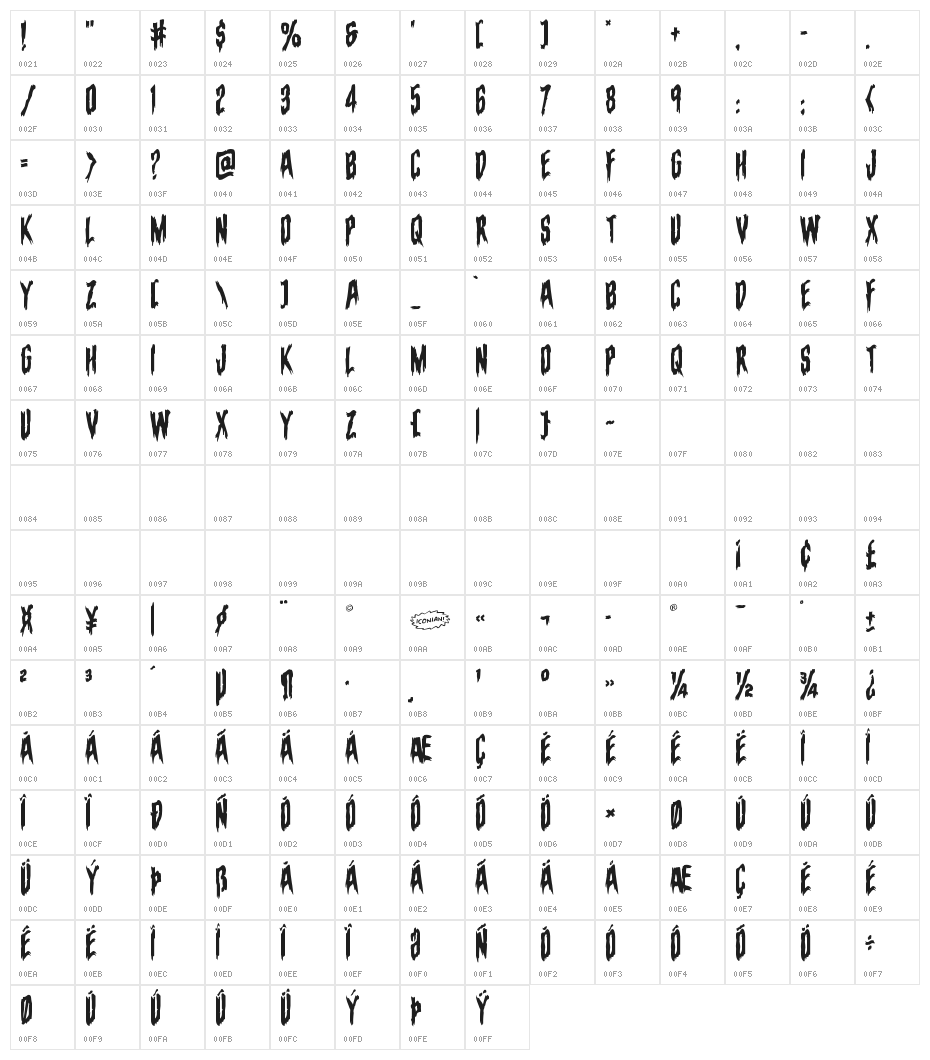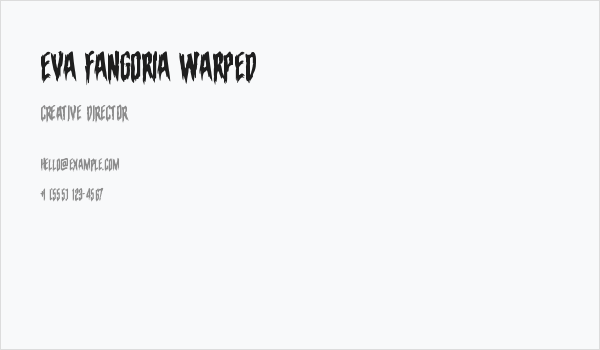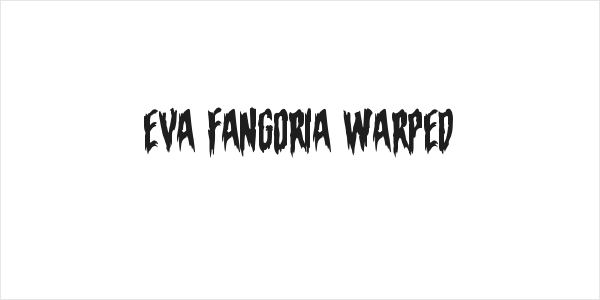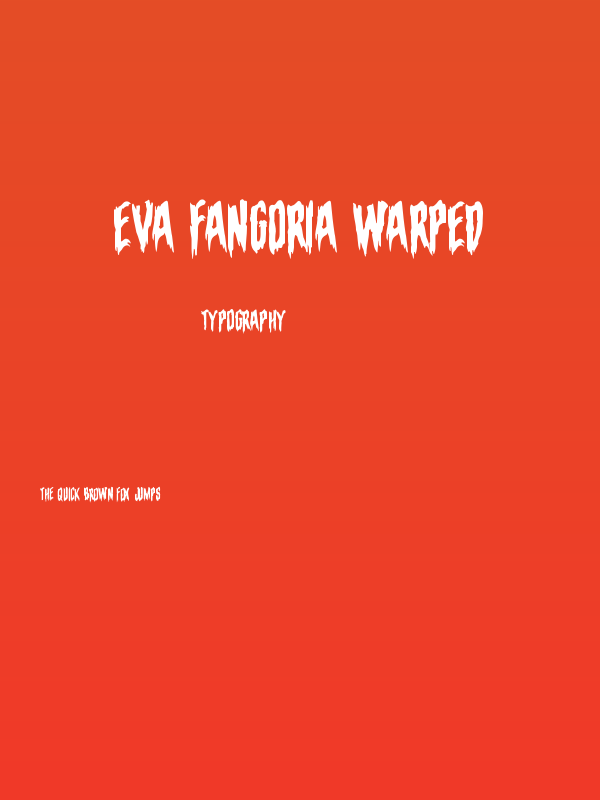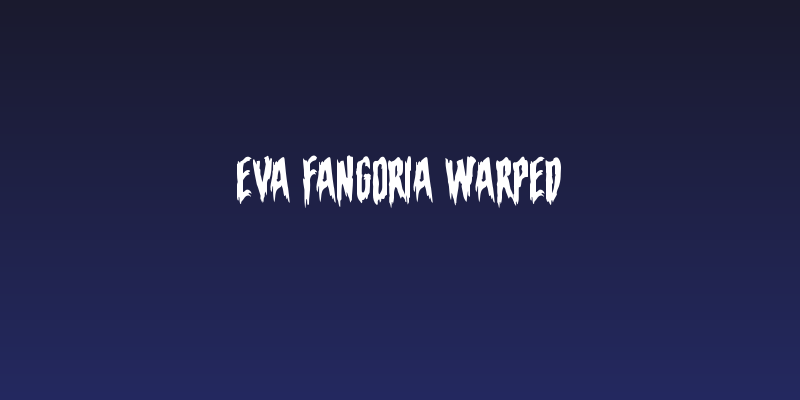
Eva Fangoria Warped Font
Eva Fangoria Warped Description
This font features a bold, jagged design that evokes a sense of horror and intensity. The characters are irregular and appear as if they are dripping or melting, adding a dynamic and unsettling aesthetic. The uppercase and lowercase letters maintain a consistent style, with sharp edges and uneven lines that create a chaotic yet cohesive look. Numbers and special characters follow the same theme, ensuring a uniform appearance across all text elements. The font's unique style makes it ideal for projects that require a dramatic and eye-catching typeface.
| Proposed Projects | Ideal for Halloween-themed designs, horror movie posters, spooky event invitations, and any project requiring a dramatic, eye-catching typeface. |